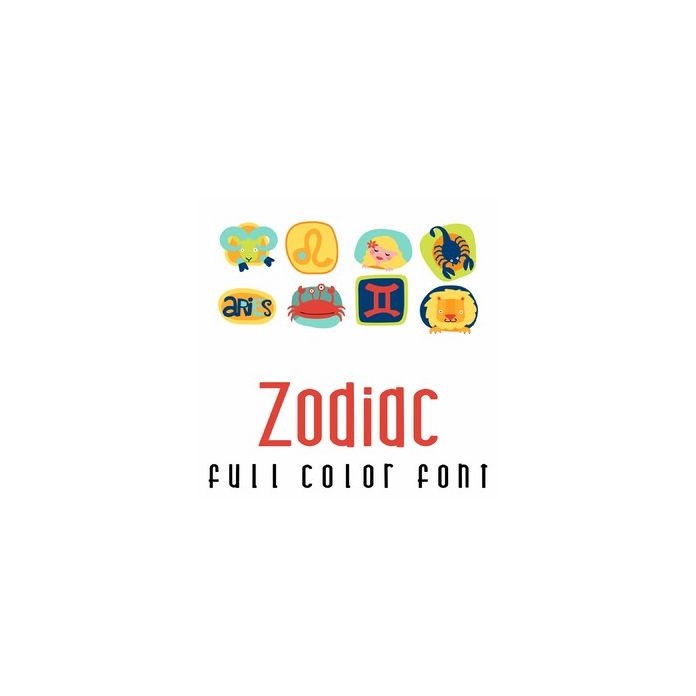
This adorable full-color doodlebat font features 37 fun zodiac signs and imagery. Perfect for cards, crafts, gifts, decor, scrapbook pages, planner stickers, and more! Glyphs A-Z and 0-9 plus !